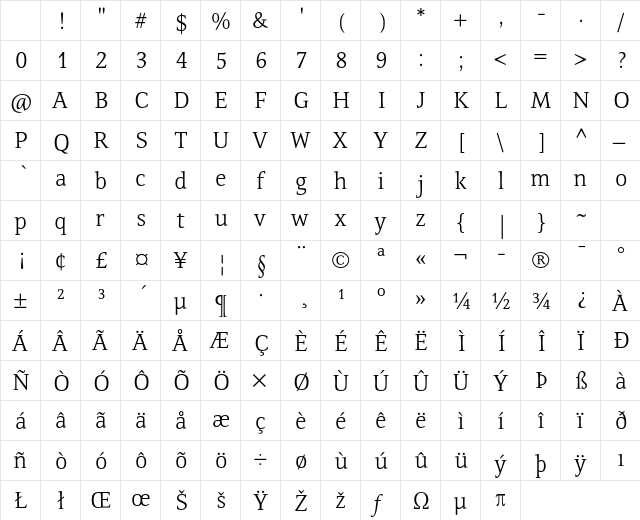
Resavska ITC Std is a composed and adaptable typeface that performs quietly and consistently across a wide range of design contexts. Its slender proportions lend an understated elegance to any composition.